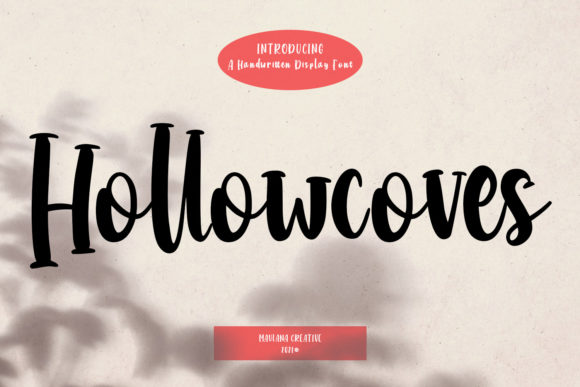
Hollowcoves: A Handwritten Font for Authentic Brand Stories
There’s a certain magic in the way a hand-drawn letter feels. It carries imperfection, personality, and a human touch that a perfectly engineered sans serif simply can’t replicate. In a digital world saturated with clean lines and geometric precision, that human element becomes a powerful differentiator. This is where a typeface like Hollowcoves steps in. It’s not just a collection of glyphs; it’s a tool for injecting warmth, authenticity, and narrative depth into your visual projects. Think of it as the digital equivalent of a signature scrawled on a heartfelt note—it immediately sets a tone and builds a connection.
Hollowcoves is a handwritten display font, crafted with a distinct sense of organic flow. Its characters exhibit natural, slightly uneven baselines and varied stroke weights, mimicking the pressure and movement of a real pen or brush. The letterforms are open and friendly, with a casual elegance that avoids feeling messy or childish. It has a modern, approachable personality, making it a versatile creative asset. The overall appeal lies in its ability to feel both personal and polished, bridging the gap between a raw, artistic sketch and a usable, professional typeface.
Where Hollowcoves Truly Shines
The strength of a display font like Hollowcoves lies in its ability to command attention at larger scales. It’s designed to be seen, not necessarily to be read in long paragraphs. This makes it exceptionally well-suited for specific applications where personality and impact are paramount.
For logo design, Hollowcoves can be the cornerstone of a brand identity for artisanal products, boutique studios, independent cafes, or lifestyle blogs. It immediately communicates a handmade, thoughtful quality. Paired with a clean, simple sans serif font for body text, it creates a beautiful contrast that feels both professional and personal. The same principle applies to social media graphics. A quote overlay, a sale announcement, or a headline for an Instagram story gains instant character and stop-scrolling appeal when set in Hollowcoves. It cuts through the visual noise with its distinctive style.
Beyond digital, consider its use in editorial design. A chapter title in a cookbook, a pull quote in a magazine feature, or the cover of a fiction novel can leverage Hollowcoves to set a specific mood. It’s particularly effective for genres that value a personal narrative, like memoirs, travel journals, or contemporary romance. In packaging design, it can elevate labels for small-batch goods, from artisanal chocolate to craft beer, adding a layer of authenticity that mass-produced items lack. The font’s character helps tell the product’s story before it’s even opened.
Making It Work: Practical Guidance for Designers and Creators
Choosing the right font is about more than just liking how it looks in isolation. It’s about evaluating fit, testing combinations, and ensuring it serves the project’s goals. Here’s how to approach integrating Hollowcoves into your work effectively.
First, evaluate the project’s voice. Is the brand aiming for friendly, whimsical, rustic, or modern-casual? Hollowcoves excels in these areas. It might be less suitable for a law firm or a financial institution that requires a tone of unshakable authority and tradition. Context is everything. Next, consider readability. As a display font, its primary job is to be legible at headlines, logos, and titles, not in 8-point body copy. Test it at the intended size and in the intended environment—on a mobile screen, on a printed book cover, or on a billboard mockup.
A critical step is font pairing. Hollowcoves will almost always need a partner for running text. The classic and reliable approach is to pair a handwritten display font with a neutral, highly legible serif font or sans serif font. For example, Hollowcoves for headlines paired with a font like Lato, Open Sans, or a clean serif like Lora creates a harmonious and functional typographic system. The contrast ensures the handwritten element stands out without sacrificing overall readability.
Before finalizing, review the font’s included styles and licensing. Does Hollowcoves come with multiple weights (light, regular, bold)? Does it include alternate characters or ligatures that add variety? These features increase its flexibility. Most importantly, ensure the license covers your intended use. If you’re designing a logo for a client, creating merchandise for sale, or using it in a published book, you need a commercial license. This is a standard part of using premium font assets professionally.
The Subtle Power of Handwritten Typography
The choice of typeface influences perception in ways we don’t always consciously register. A handwritten font like Hollowcoves can soften a brand’s image, making it feel more approachable and human. It can enhance visual hierarchy by creating a clear, engaging contrast between headline and body text. This distinction guides the viewer’s eye and improves the overall flow of information.
Consistency in using such a distinctive font across platforms—from your website headers to your email signatures to your printed invoices—builds strong brand recognition. The unique letterforms become a visual shorthand for your brand’s personality. However, this requires discipline. Overusing a display font can dilute its impact and harm professionalism. The key is strategic application: use it for moments of emphasis, for emotional connection, and for key branding elements, supported by more restrained typography for functional text.
In the end, tools like the Hollowcoves Handwritten Display Font are about expanding your creative vocabulary. They offer a way to break from the uniformity of default system fonts and craft something that feels genuine. Whether you’re a small business owner building your first brand identity, a designer seeking fresh assets for a client project, or a publisher designing a compelling book cover, integrating a character-rich typeface can be the detail that transforms good work into memorable work. It’s about choosing not just what to say, but how it feels to say it.